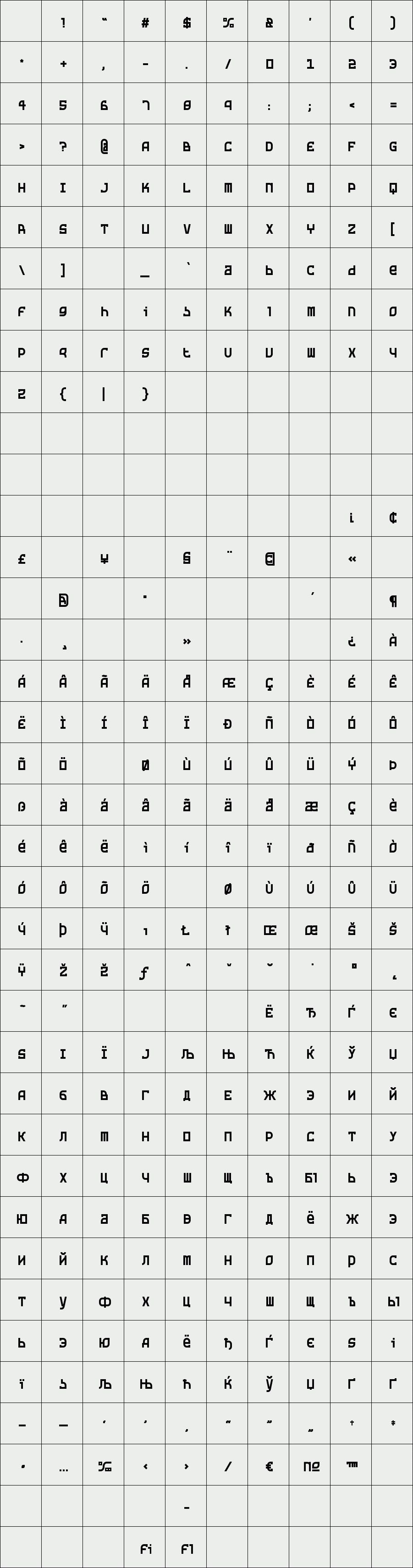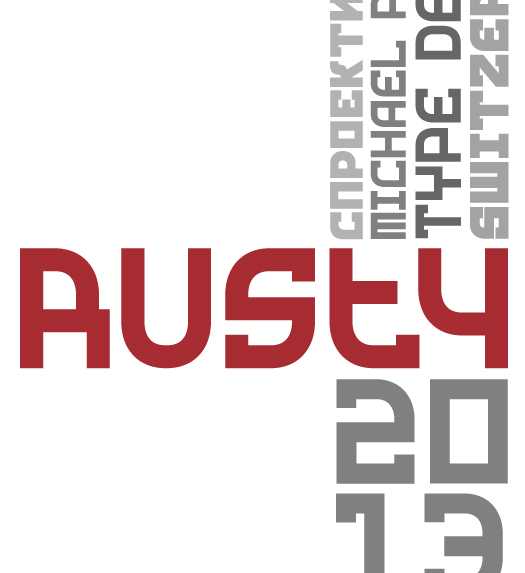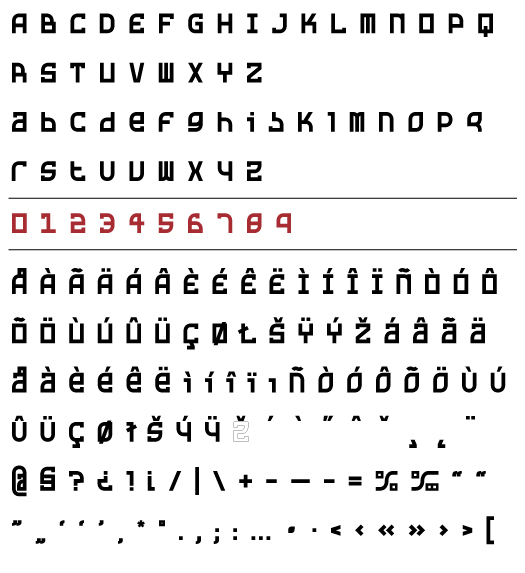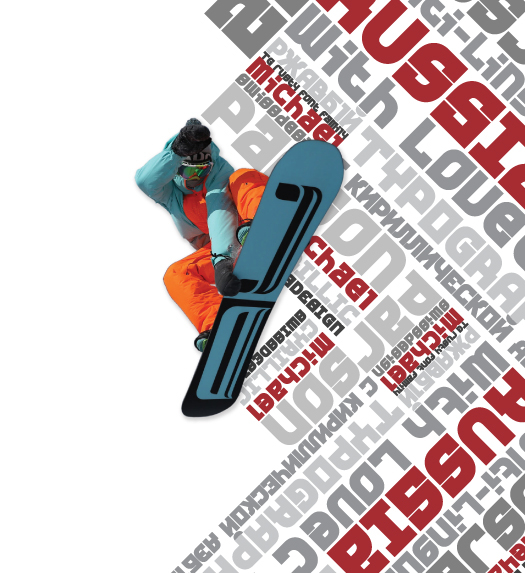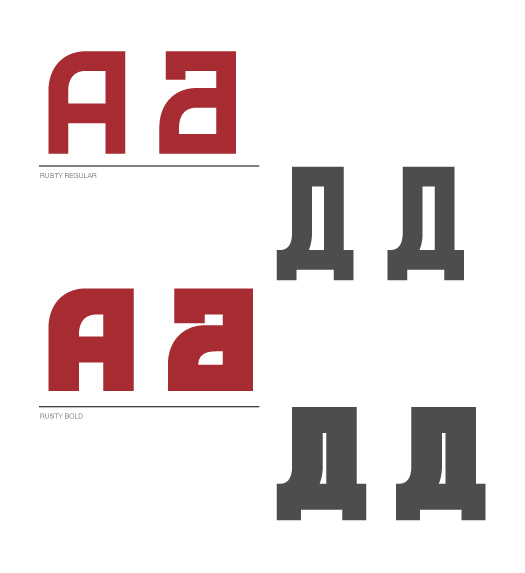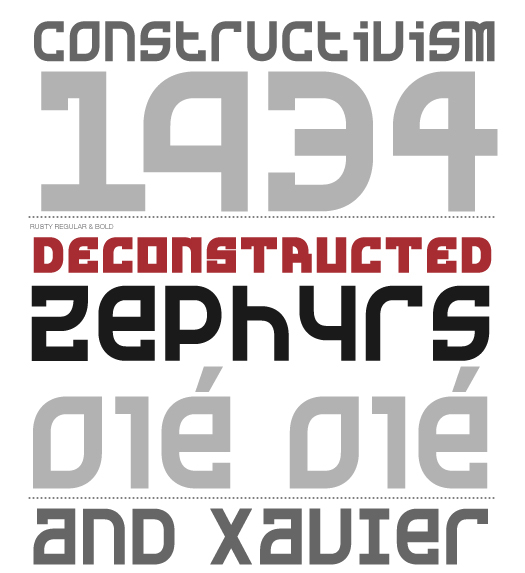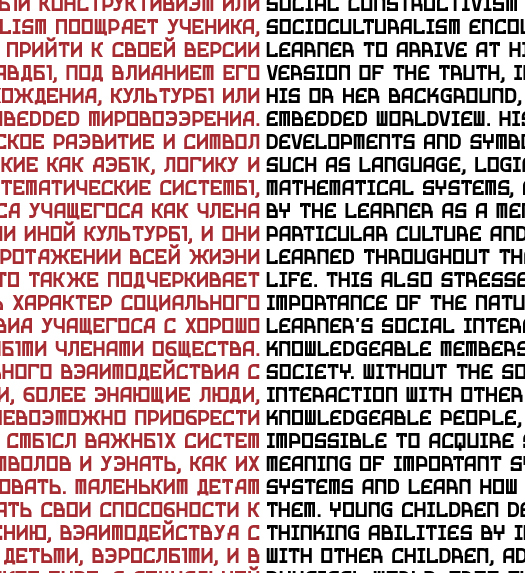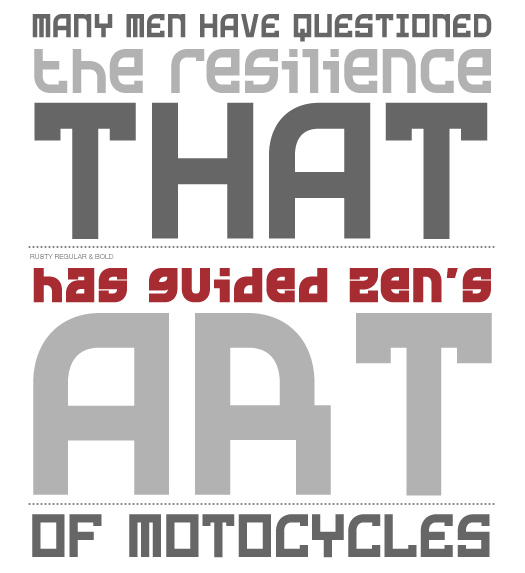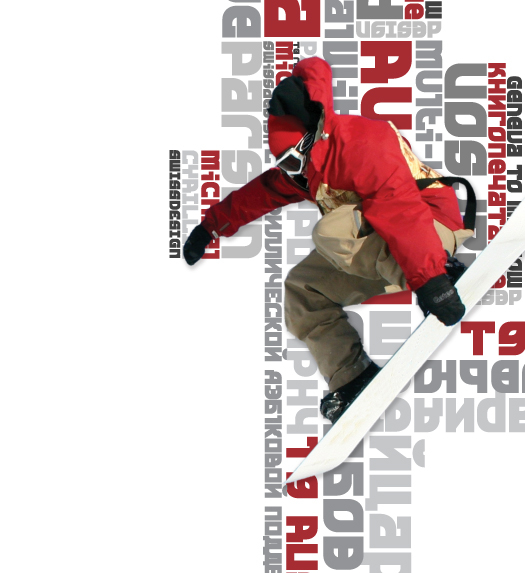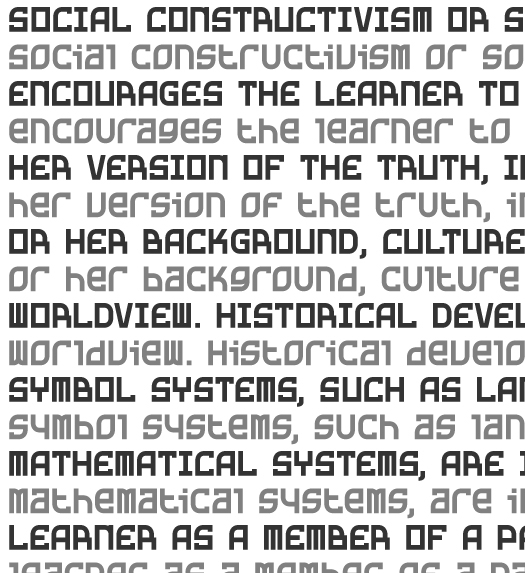
Rusty
/ Rusty regular
Rusty is a constructivist inspired display typeface, that is constructed as a unicase design. Lowercase and capitals letters can be combined for the best results. True Cyrillic letterforms are also included.